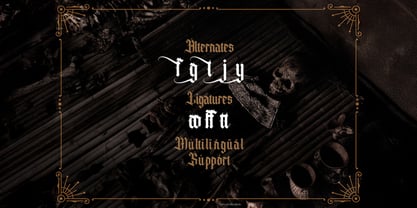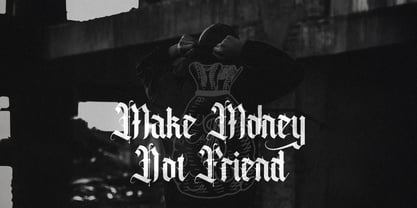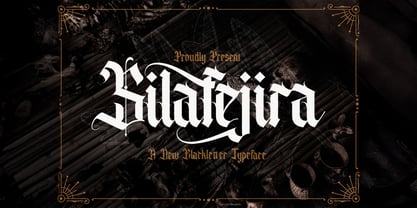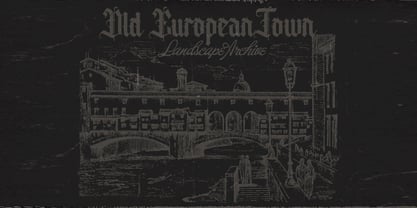
The Silafejira Font Family was designed by Virgiawan Listanto and published by Stringlabs Creative Studio. Silafejira contains 1 styles. More about this family
Silafejira is a fierce and fearless blackletter font that fuses gothic tradition with modern edge. With razor-sharp lines, dramatic curves, and powerful character, Silafejira is built to stand out in any design. Stylish punch to your work with a typeface that’s as intense as your vision.
Designers: Virgiawan Listanto
Foundry: Stringlabs Creative Studio